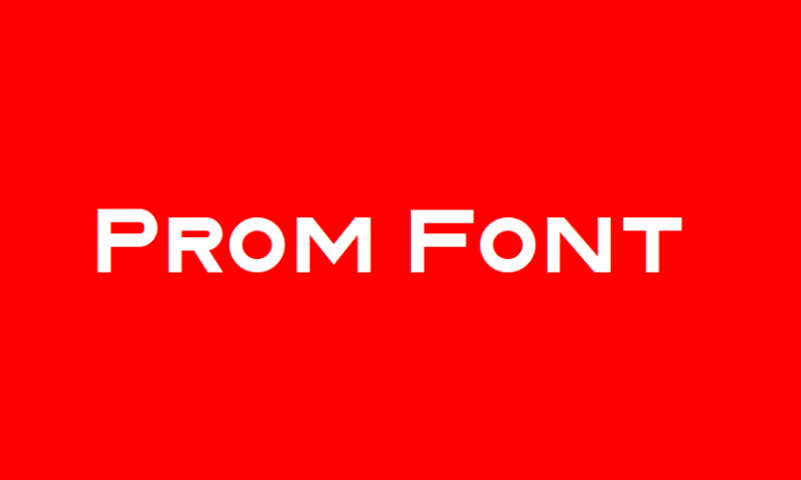
Prom Font, by Vladimir Nikolic is a sans serif stunning when combined or separately. This sans serif font style is legible and stunningly designed.
| Designer Name: | Vladimir Nikolic |
| Classification: | Sans Serif Fonts, Style / Aesthetic Fonts |